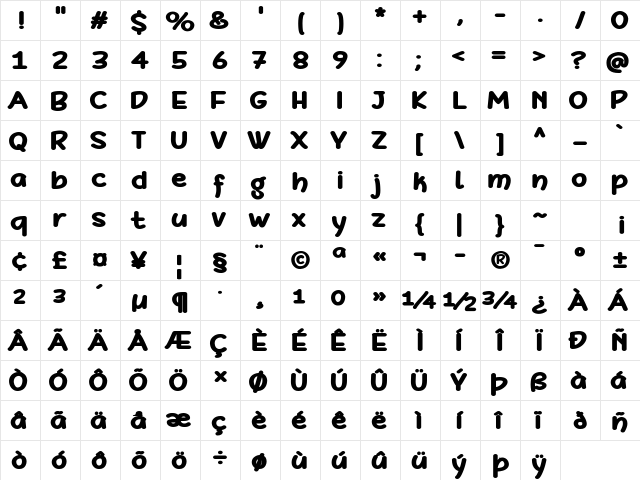
DeFonarts Bold
| Designer | Situjuh Nazara |
Design Context for DeFonarts Typeface
DeFonarts offers clean, dependable letterforms without strong stylistic allegiance, making it a practical choice for designers who need flexibility. Its bold stroke weight gives it real presence on the page.